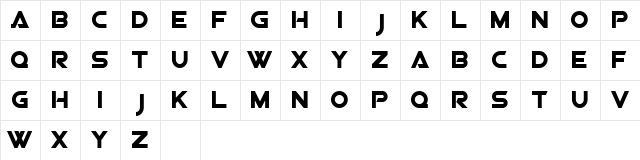
Viper Squadron Solid Regular
| Foundry | ShyFoundry |
| Designer | Derek Vogelpohl |
Design Context for Viper Squadron Solid Typeface
Viper Squadron Solid is a composed and adaptable typeface that performs quietly and consistently across a wide range of design contexts.